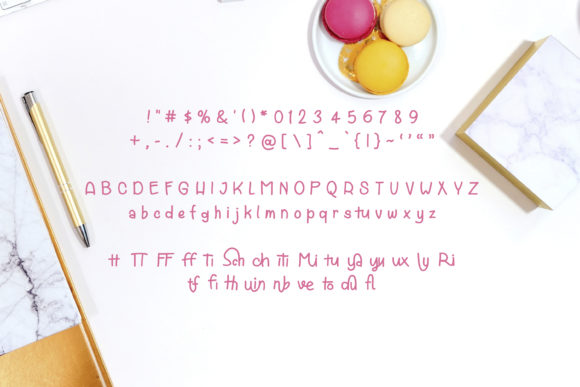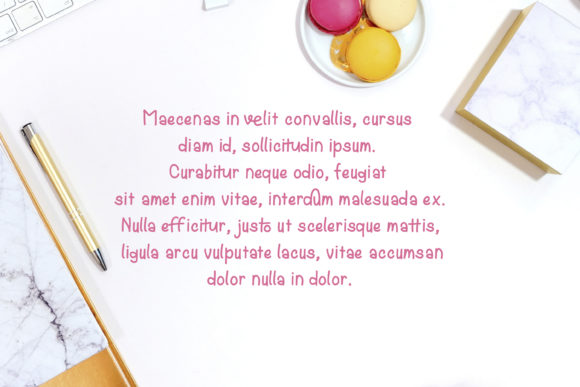
HomeScript FontsSchuya Font Script Fonts Schuya Font FacebookXPinterestWhatsApp Save the date wedding invitation card mockup Schuya Font Poster 2 Schuya Font Poster 3 About Schuya Font Schuya is a playful handwritten font with a friendly feel. Use this unique font to bring any DIY project to life! DOWNLOAD ON CREATIVE FABRICAThis font is sold and delivered by Creative Fabrica. Font Canyon may earn a commission if you buy through this link. People also explored Slowdown Font Wellington Font Punk Rocker Rainly Font Lanxi Rexas Font Pretty September Font Neillgates Script Font Happy Halloween Font Smart Kids Font 292 0 TagsSchuya Font Previous articleBright Monday FontNext articleVilla Luna Font LEAVE A REPLY Cancel reply Comment: Please enter your comment! Name:* Please enter your name here Email:* You have entered an incorrect email address! Please enter your email address here Website: Save my name, email, and website in this browser for the next time I comment. Personal Use Free The Fourth Avenue Personal Use Free Read more about this font A New Nattyla Personal Use Free Read more about this font Proudly Personal Use Free Read more about this font Adelia Font Personal Use Free Read more about this font BLOG To increase your work productivity, choose the most readable fonts. In today's fast-paced work environment, where digital communication and information consumption are integral to our daily routines, the choice of fonts can significantly impact... Elegant Wedding Invitation Fonts – Handwritten & Script Fonts Best Fonts for T-Shirt Design – Top 2025 Picks Top 10 Handwritten Fonts That Elevate Your Designs